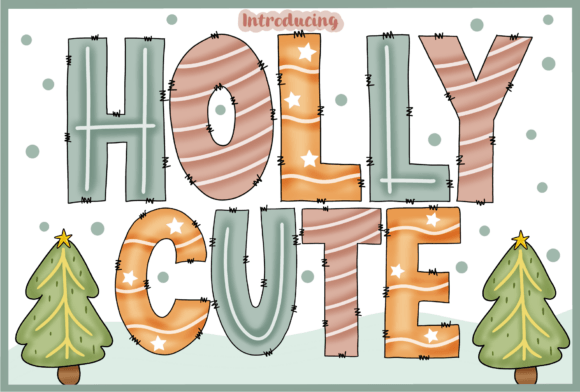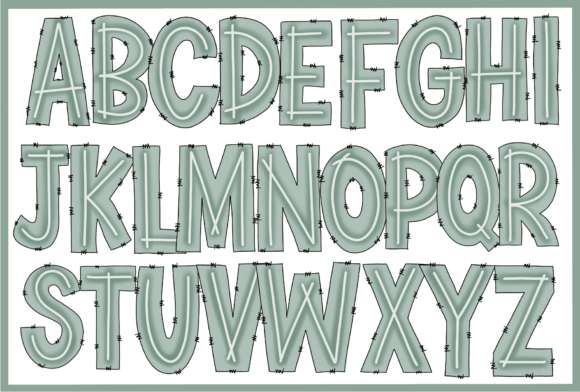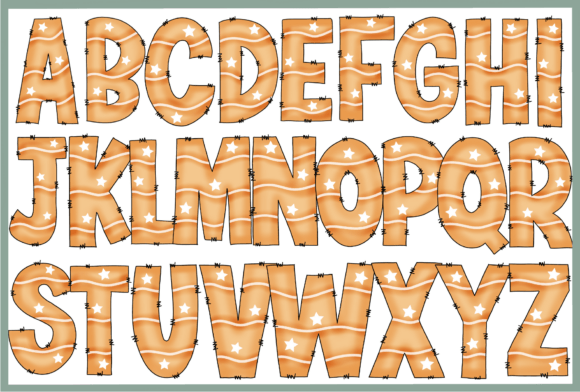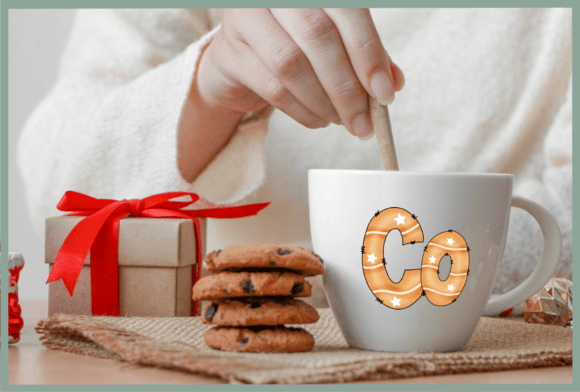
Holly Cute Font
HOLLY CUTE is a decorative font designed with fun letters that feature Christmas patterns. Each letter is decorated with festive elements and ornaments, making it perfect for holiday cards, invitations, and cheerful designs.